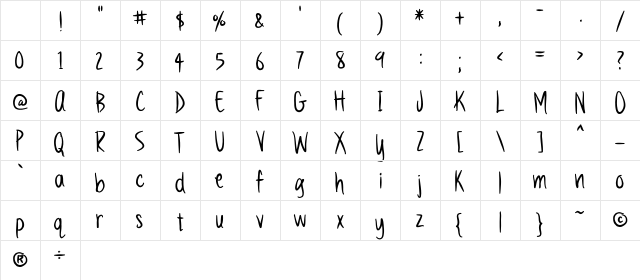
Vanilla Twilight is a composed and adaptable typeface that performs quietly and consistently across a wide range of design contexts. Its slender proportions lend an understated elegance to any composition.